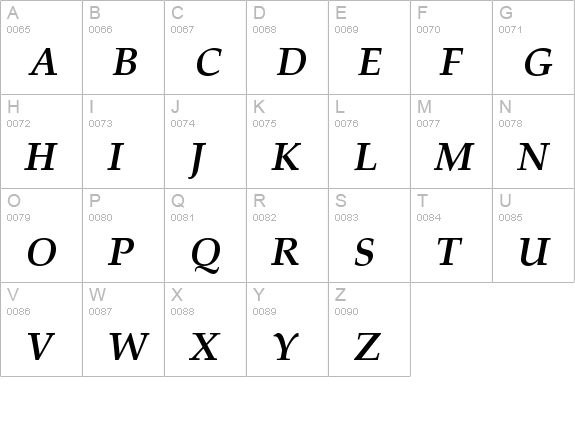
HI Piilani Bold Italic is a strong, high-contrast, italic variant in the HI typeface family \xE2\x80\x94 well suited to headlines, attention-grabbing titles, and strong calls-to-action.
HI Piilani Bold Italic is a stunning and versatile font that combines boldness with elegance in a unique way. Its thick and slanted characters exude confidence and style, making it perfect for a wide range of design projects. Whether you are working on a poster, logo, or website, HI Piilani Bold Italic will add a touch of sophistication to your work. What makes HI Piilani Bold Italic even more appealing is that it is available for free download at FontsMarket.com. This means you can easily access this beautiful font without any cost, making it a valuable addition to your font collection. Don't miss out on the opportunity to enhance your designs with the distinctive charm of HI Piilani Bold Italic. Download it today and elevate your creative projects to new heights.